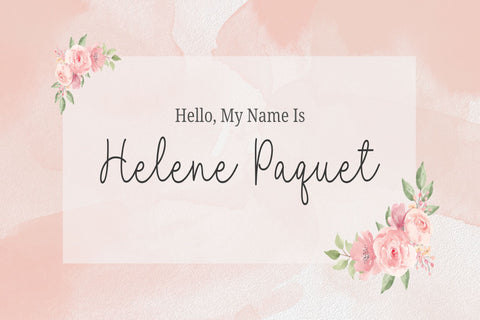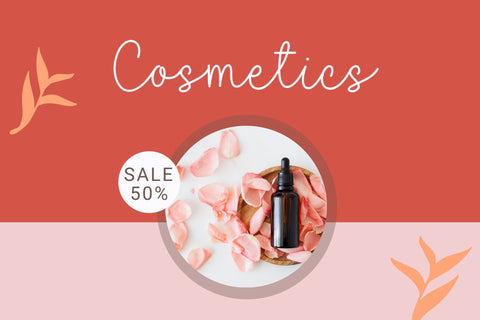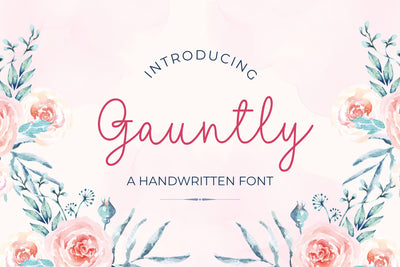
Gauntly - a Handwritten Font
Gauntly is a stunningly sweet and delicious handwritten font with a cool vibe. It will turn any design idea into a true piece of art.